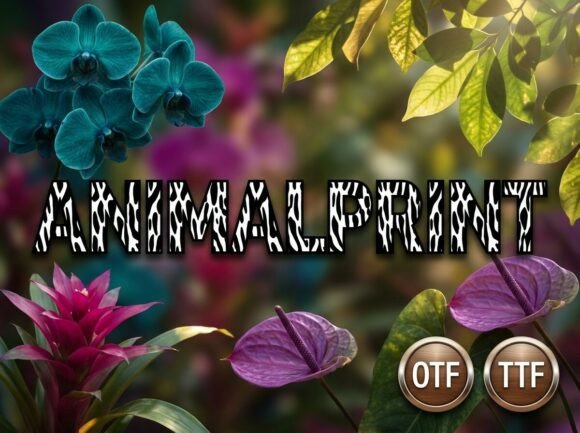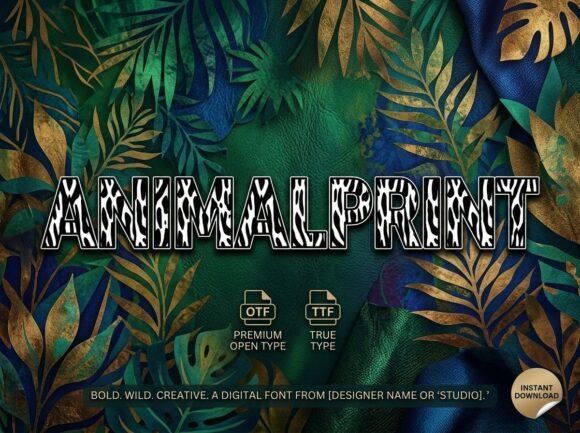
Unleash the Wild Side: Discover the Animalprint Font
Are you ready to add a touch of the exotic to your graphic designs? Look no further than the Animalprint Font, a bold, wild, and creative digital display font that’s sure to make a statement. This striking uppercase typeface is perfect for designers and crafters who want to bring a taste of the jungle to their work.
The Raw, Untamed Spirit of the Jungle
Animalprint Font is designed to evoke the raw, untamed spirit of the jungle. With its thick, blocky character stems and stunning interior pattern, this font is sure to command attention on any page. The solid core of each letter envelope is intricately detailed with a high-density matrix of safari leopard spots and organic tiger stripes, creating a savage beauty through clever negative-space aesthetics.
High-Fashion Exotic Texture
What sets Animalprint Font apart is its ability to bring high-fashion exotic texture to your graphic layouts. The font’s unique design makes it perfect for use in alternative streetwear apparel lines, organic cosmetics branding, safari travel blog headers, and creative product packaging. Whether you’re looking to add a touch of luxury or a dash of playfulness, Animalprint Font is the perfect choice.
Legibility and Versatility
One of the key benefits of Animalprint Font is its legibility, even when layered over dark, dense backgrounds. The smart framing boundary ensures that the complex animal skin patterns don’t get lost, making it easy to read and understand. This versatility makes it perfect for use in a wide range of applications, from bold headlines to creative product packaging.
Design Inspiration
Animalprint Font is perfect for designers and crafters who want to add a touch of the exotic to their work. Here are a few design inspiration ideas to get you started:
- Pair Animalprint Font with emerald palm fronds or lush tropical jungle leaves for a truly exotic look.
- Use Animalprint Font as a centerpiece for luxury gold-veined leather textures or high-end product packaging.
- Create a bold and playful look by layering Animalprint Font over bright, bold colors or patterns.
Animalprint Font is perfect for designers and crafters who want to add a touch of personality to their work. Whether you’re creating alternative streetwear apparel lines, organic cosmetics branding, or safari travel blog headers, this font is sure to make a statement. With its unique design and high-fashion exotic texture, Animalprint Font is the perfect choice for anyone looking to unleash their creativity.
Here are some of the key features that make Animalprint Font stand out:
- Bold, wild, and creative digital display font
- Thick, blocky character stems with stunning interior pattern
- Intricately detailed with high-density matrix of safari leopard spots and organic tiger stripes
- Smart framing boundary for ultimate legibility
- Perfect for use in alternative streetwear apparel lines, organic cosmetics branding, safari travel blog headers, and creative product packaging
In conclusion, Animalprint Font is a bold, wild, and creative digital display font that’s perfect for designers and crafters who want to add a touch of the exotic to their work. With its unique design, high-fashion exotic texture, and versatility, this font is sure to make a statement in any graphic layout. So why wait? Unleash the raw, untamed spirit of the jungle and bring high-fashion exotic texture to your designs with Animalprint Font.